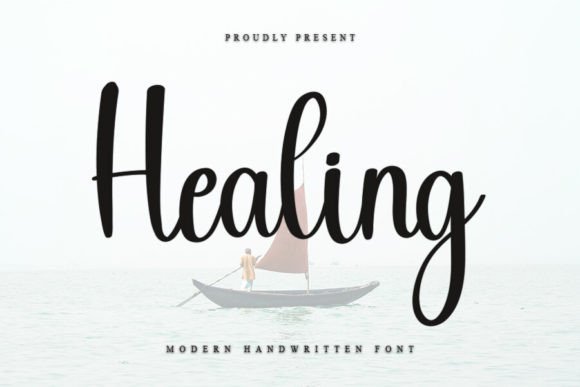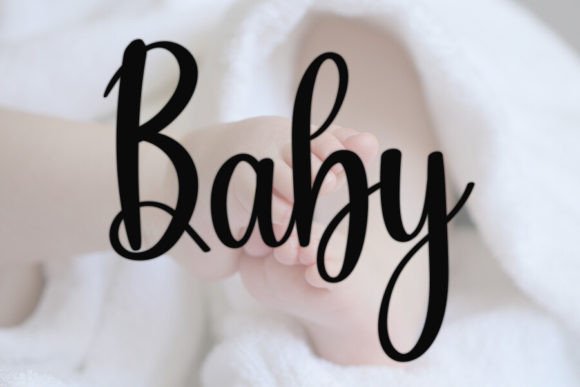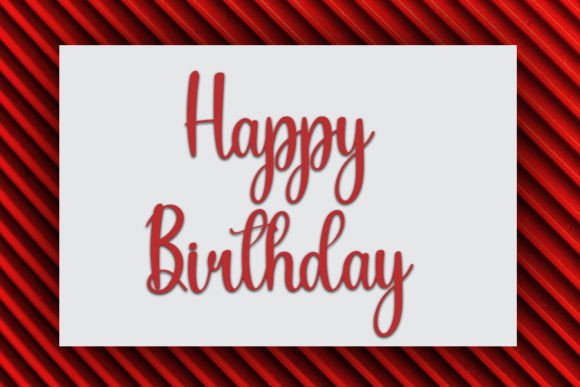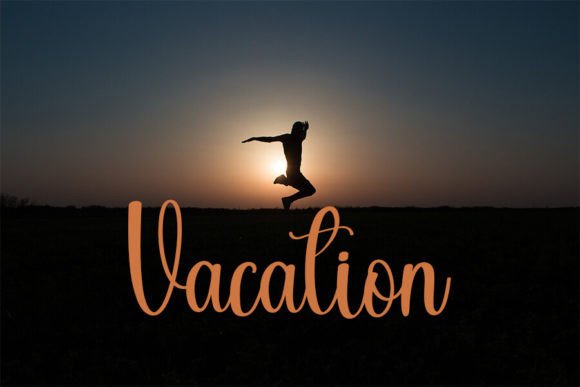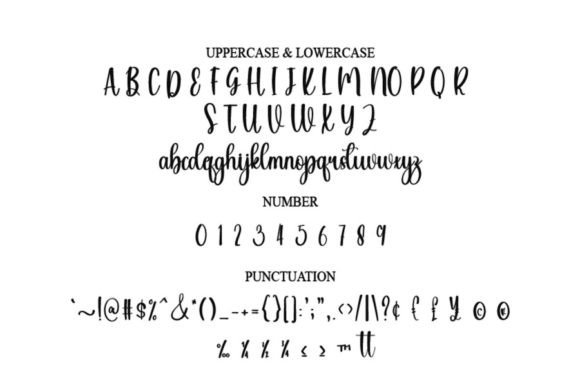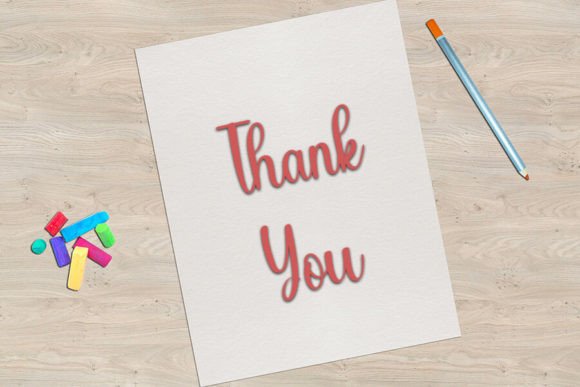
Find Your Creative Flow with the Healing Font
There’s nothing quite like the rush of inspiration that comes with staring at a blank page, waiting for your next big idea to strike. You’ve spent hours brainstorming, and finally, it hits you – a design concept that’s both beautiful and meaningful. But, the real challenge begins when it’s time to bring your vision to life. This is where the Healing Font comes in, a stunning handwritten font that adds an elegant touch to any project.
With its distinct and timeless style, the Healing Font is the perfect addition to any designer’s toolkit. Whether you’re working on a branding project, a wedding invitation, or a blog post, this font is sure to elevate your design to the next level. Its versatility and sophistication make it a valuable asset for any creative professional, and it’s easy to see why the Healing Font has become a favorite among designers.
Healing Font Key Features
- Font Family: A unique, hand-crafted font designed to promote relaxation and healing. Available in three different styles: Regular, Italic, and Bold.
- Character Set: The font includes a wide range of characters, including Latin, Cyrillic, and Greek alphabets, as well as punctuation marks and symbols.
- Unique Characteristics: The Healing Font features a calming, handwritten style with subtle flourishes and curves, making it ideal for creating soothing and therapeutic designs.
Healing Font Review
As a designer, I was excited to dive into the Healing Font and see what it had to offer. Overall, I found it to be a solid addition to any designer’s toolkit, but with some limitations.
- Healing Font’s unique aesthetic and style make it a great choice for designers looking to create a calming and soothing atmosphere in their designs.
- The font’s clean lines and simple shapes make it highly legible, even at small font sizes.
- The font family includes a range of weights and styles, making it easy to find the perfect fit for your design needs.
- The font may not be suitable for projects that require a more energetic or playful tone, as its calming aesthetic may not be enough to convey the desired message.
- The font’s simplicity may make it less versatile for designs that require a lot of visual interest or complexity.
Overall, I think Healing Font is a solid choice for designers who need a clean and calming font for their projects. While it may not be the best fit for every design need, it’s definitely worth considering for projects that require a soothing and relaxing atmosphere.
Tips for Getting the Most Out of Healing Font
Here are some tips to help you get the most out of Healing Font:
- Use Healing Font in combination with other design elements to create a cohesive look.
- Experiment with different font sizes, colors, and styles to find the perfect look for your design.
- Use Healing Font to add a touch of elegance and sophistication to your design.
Healing Font can be used in a variety of design projects, including:
- Business cards and letterheads.
Alternatives to Healing Font